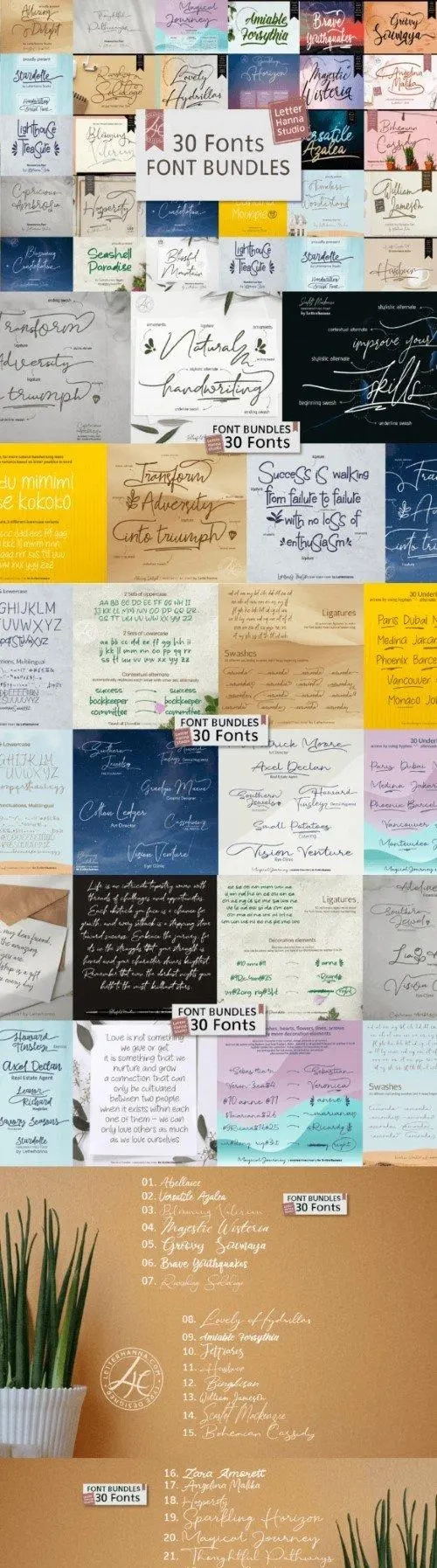
Handwritten Bundle Font
The Handwritten Bundle Font is a carefully crafted collection of unique handwritten typefaces designed to add a personal touch to your projects. This bundle features a variety of styles that mimic natural handwriting, making it perfect for a range of applications.
• Multiple font styles for versatility
• Includes regular, bold, and italic weights
• Stylish and legible design
Ideal for branding, logos, invitations, and social media graphics, the Handwritten Bundle Font will help convey a warm and inviting aesthetic.